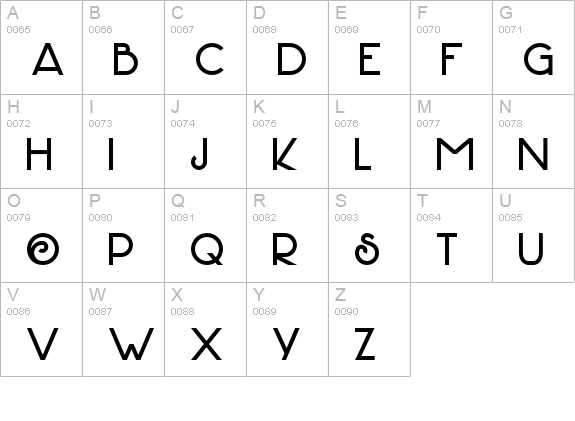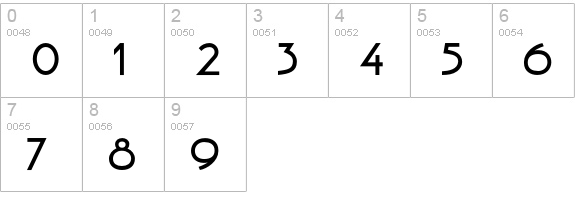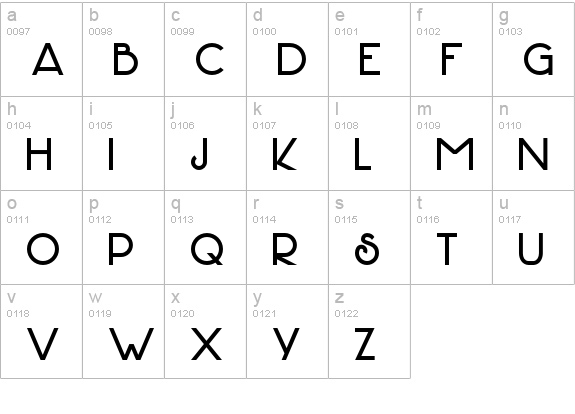
Introducing DK Hofstad, a stunning and versatile font that effortlessly captures the essence of elegance and sophistication. With its unique combination of sleek lines and delicate curves, this font adds a touch of refinement to any design project. DK Hofstad is not only visually appealing but also highly functional, making it suitable for a wide range of applications. Whether you're designing a logo, creating a brand identity, or crafting eye-catching headlines, this font is sure to make a lasting impression. One of the most remarkable features of DK Hofstad is its versatility. It seamlessly adapts to different design styles, from modern and minimalistic to classic and ornate. Its clean and crisp letterforms ensure optimal legibility, even at small sizes, making it perfect for both print and digital applications. But what sets DK Hofstad apart from other fonts is its accessibility. Unlike many other premium fonts, DK Hofstad is available for free download at FontsMarket.com. This means that you can easily access and use this remarkable font without breaking the bank. So why wait? Download DK Hofstad today and unleash your creativity with a font that combines beauty, functionality, and accessibility. Whether you're a professional designer or an aspiring artist, DK Hofstad will surely elevate your designs to new heights.